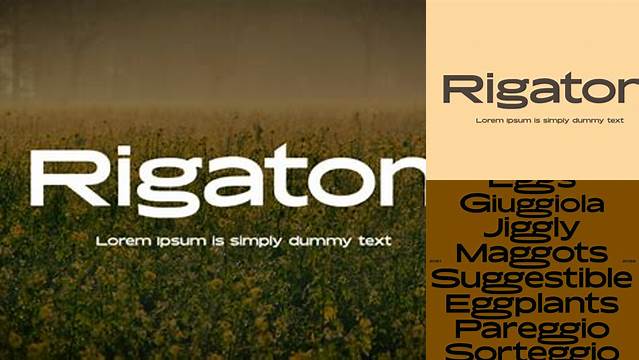
Hey guys! Are you on the hunt for the perfect font to add a touch of elegance and readability to your projects? Look no further! The Rigatoni font is a fantastic choice, and the best part? You can often find a rigatoni regular font free download available online. In this comprehensive guide, we're diving deep into everything you need to know about this beautiful font, from its characteristics and uses to where you can safely download it and how to use it effectively. Let's get started!
1. What is Rigatoni Font?
Before we jump into the rigatoni regular font free download process, let's understand what makes this font so special. Rigatoni is a typeface known for its clean lines, elegant curves, and overall readability. It often falls into the sans-serif category, making it versatile for a wide range of applications. The font's design typically emphasizes clarity, ensuring that text remains legible even at smaller sizes. This makes Rigatoni a great option for both headings and body text, a quality that not all fonts can boast. The balanced letterforms and subtle details contribute to a sophisticated yet approachable feel, making it a favorite among designers and creatives. Understanding the nuances of the Rigatoni font's design will help you appreciate its potential in your projects. Furthermore, knowing its characteristics will enable you to make informed decisions about where and how to use it, ensuring that it complements your overall design aesthetic. Whether you're working on a website, a poster, or a document, the versatility of the Rigatoni font can truly shine through.
2. Key Characteristics of Rigatoni Regular Font
The rigatoni regular font stands out due to several key characteristics. First, its clean and modern design makes it highly versatile for various applications. Unlike ornate or highly stylized fonts, Rigatoni’s simplicity ensures it doesn't distract from the message. Secondly, its excellent readability is a major advantage. The font is designed with clear, distinct letterforms that are easy to read, whether in print or on screen. This is crucial for ensuring your audience can comfortably engage with your content. Another notable feature is its balanced weight and spacing. The letters are neither too thick nor too thin, and the spacing between them is carefully considered to prevent crowding or gaps. This balance contributes to the font's overall aesthetic appeal and readability. Additionally, the rigatoni regular font often includes a variety of weights and styles, such as bold, italic, and condensed versions, providing even more flexibility. This allows designers to create visual hierarchy and add emphasis where needed. For those seeking a rigatoni regular font free download, understanding these characteristics will help you appreciate its value and make the most of it in your designs.
3. Common Uses for Rigatoni Font
So, where can you use the Rigatoni font? Its versatility makes it suitable for a plethora of applications. Think about websites – rigatoni regular font works wonderfully for both headings and body text, offering a clean and professional look. It’s also a fantastic choice for print materials like brochures, flyers, and posters, where readability is paramount. In the world of branding, Rigatoni can help create a cohesive and modern identity. Its simplicity allows it to pair well with other design elements, ensuring your brand message is clear and consistent. If you're working on digital documents, such as reports or presentations, Rigatoni can make your content more accessible and visually appealing. Its clean lines prevent eye strain, making it easier for your audience to digest information. Even in editorial design, such as magazines and newsletters, Rigatoni can shine, providing a polished and professional appearance. When considering a rigatoni regular font free download, keep in mind the wide range of projects it can enhance. From personal projects to professional endeavors, Rigatoni offers a reliable and stylish solution.
20. Kerning and Tracking with Rigatoni Font
Kerning and tracking are crucial aspects of typography that can significantly impact the readability and visual appeal of the rigatoni regular font. Kerning refers to the adjustment of space between individual letters, while tracking adjusts the overall spacing between all letters in a word or paragraph. Proper kerning ensures that letters fit together harmoniously, preventing awkward gaps or overlaps. For rigatoni regular font, which has a clean and balanced design, subtle kerning adjustments can make a big difference. Pay close attention to letter pairs like